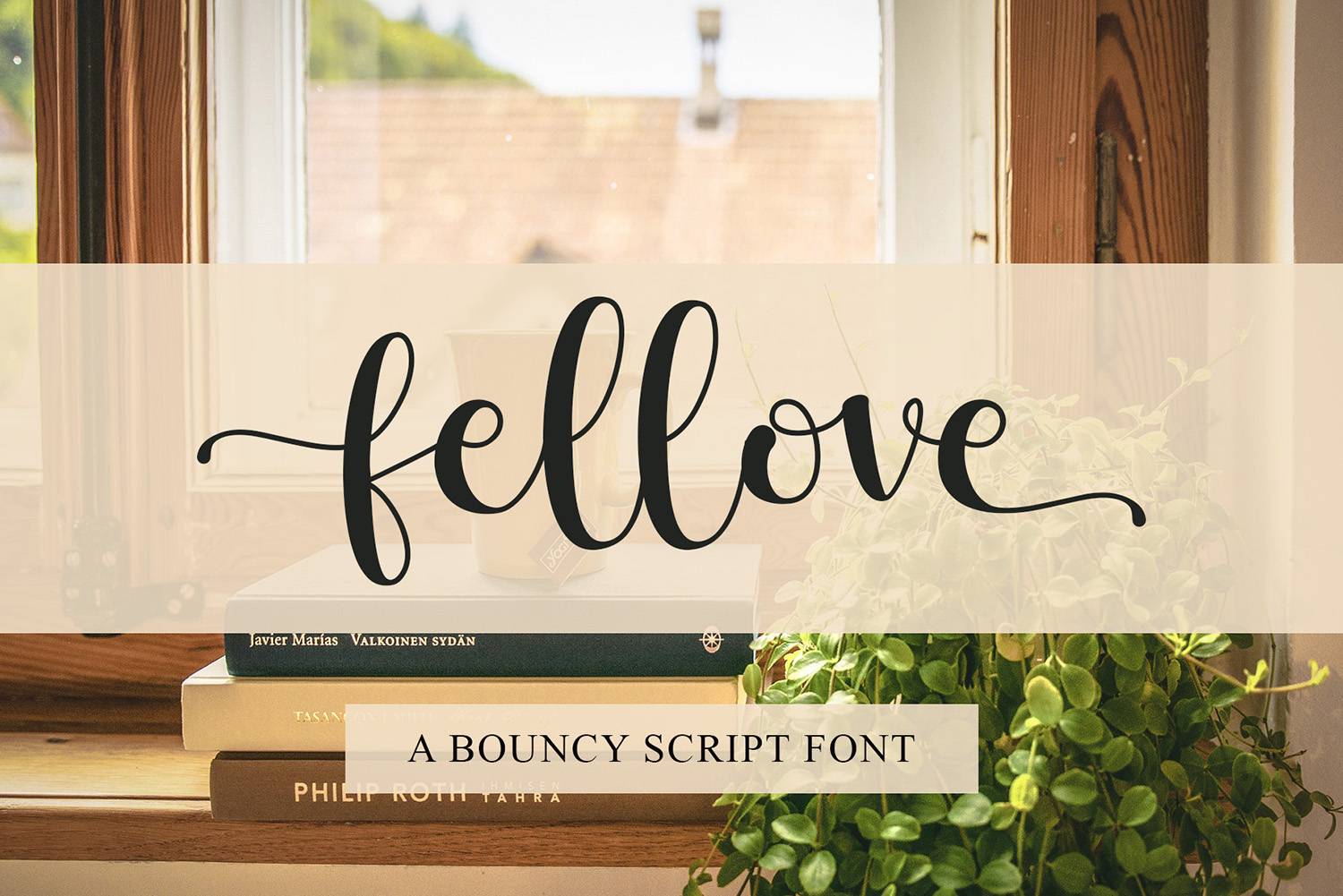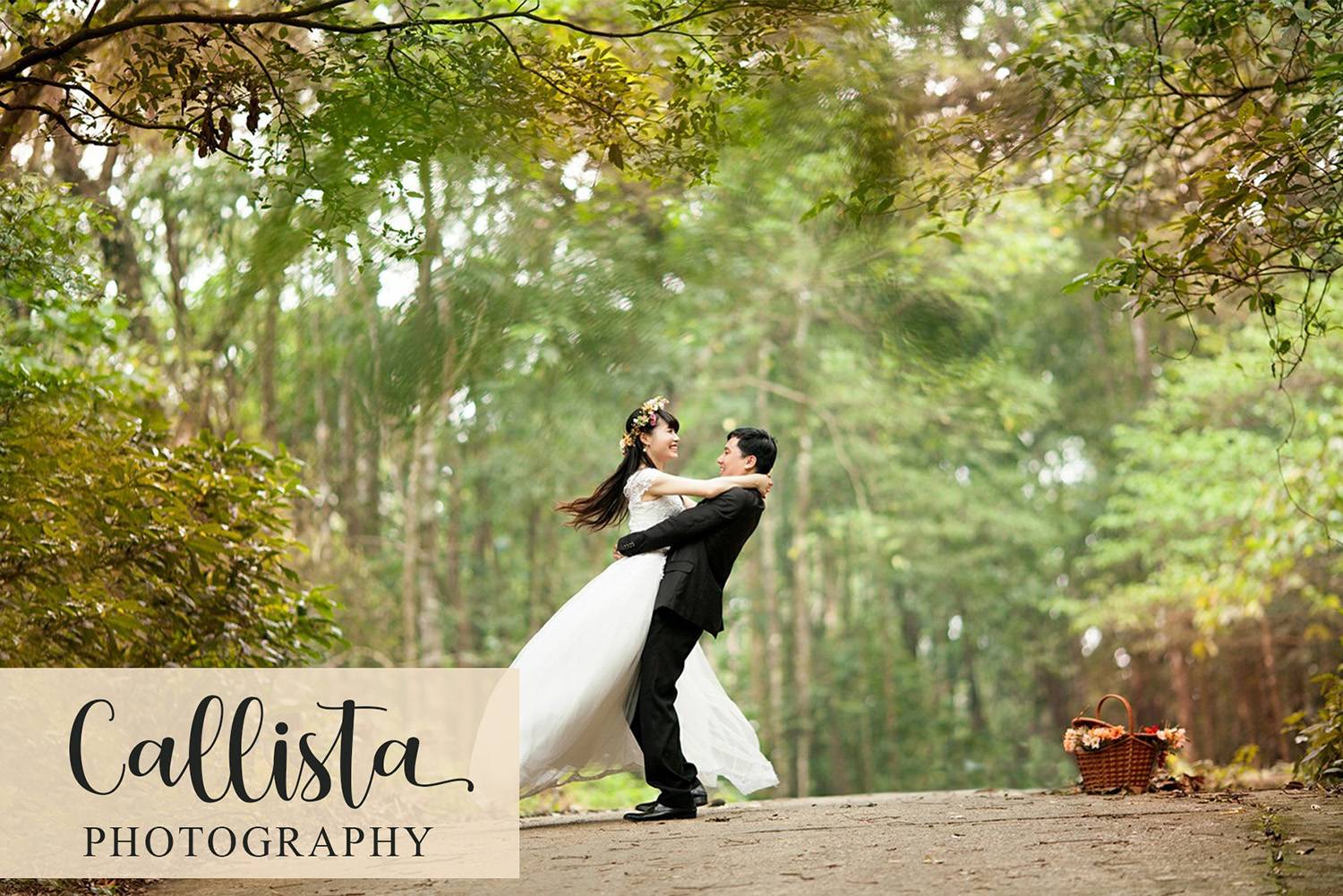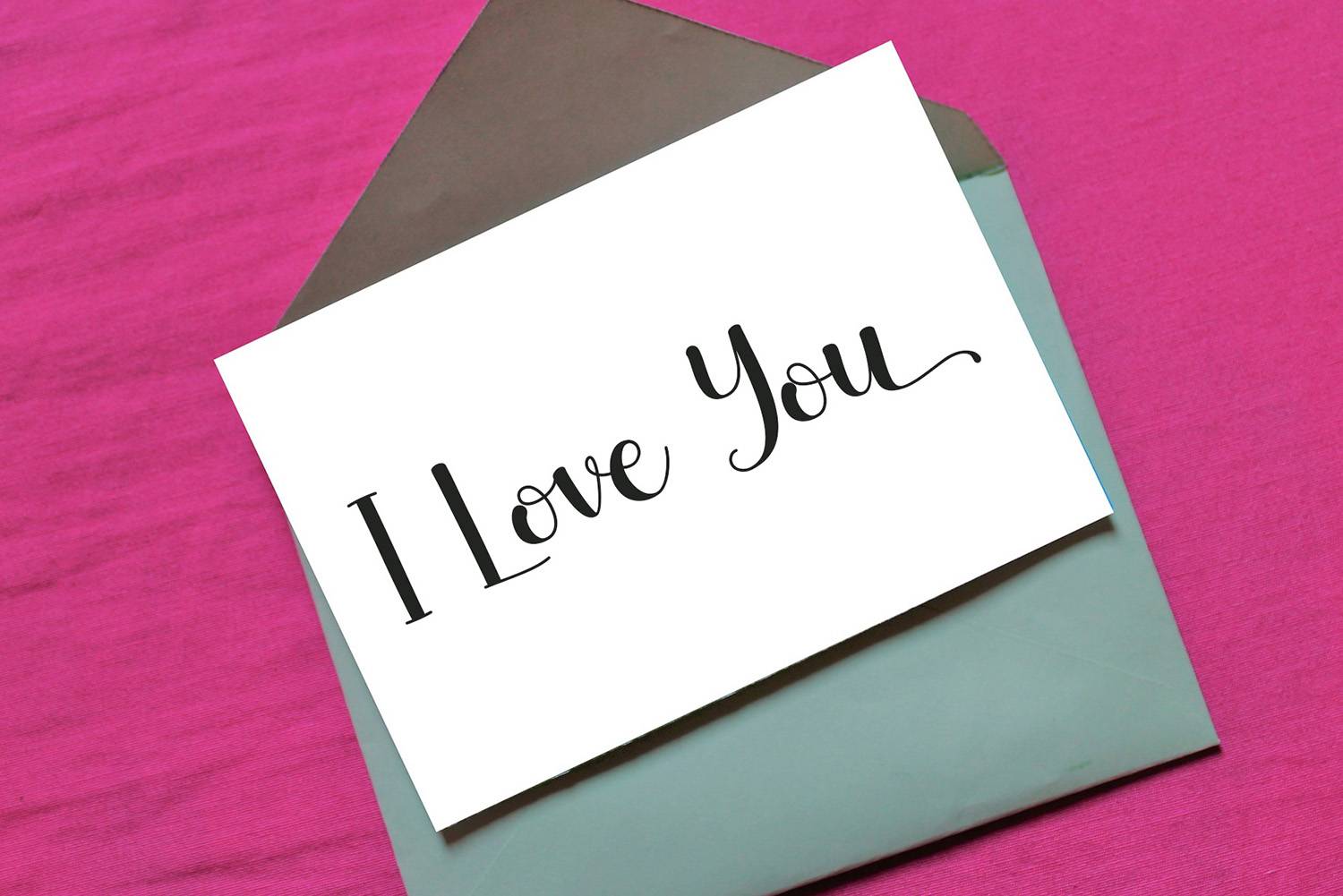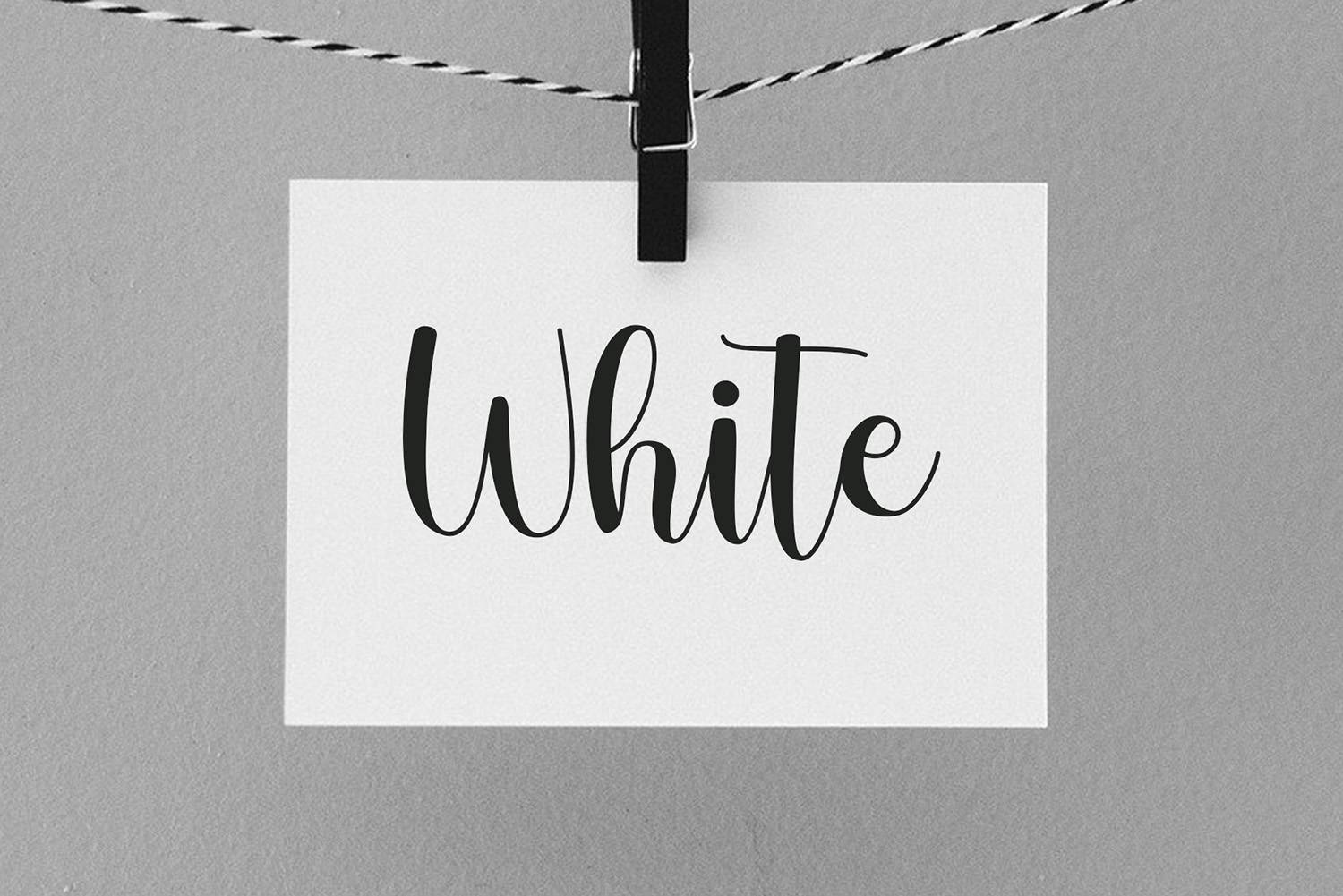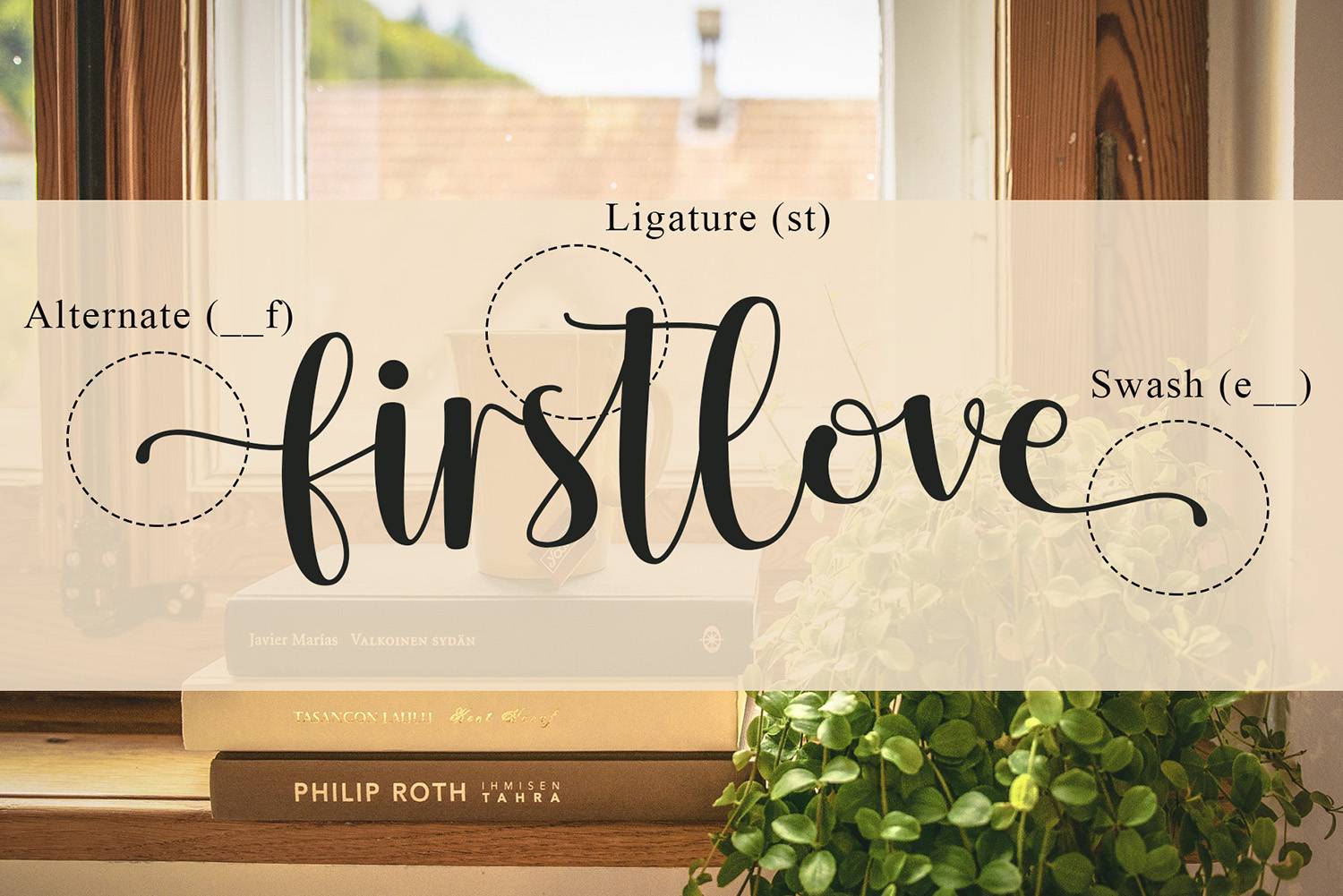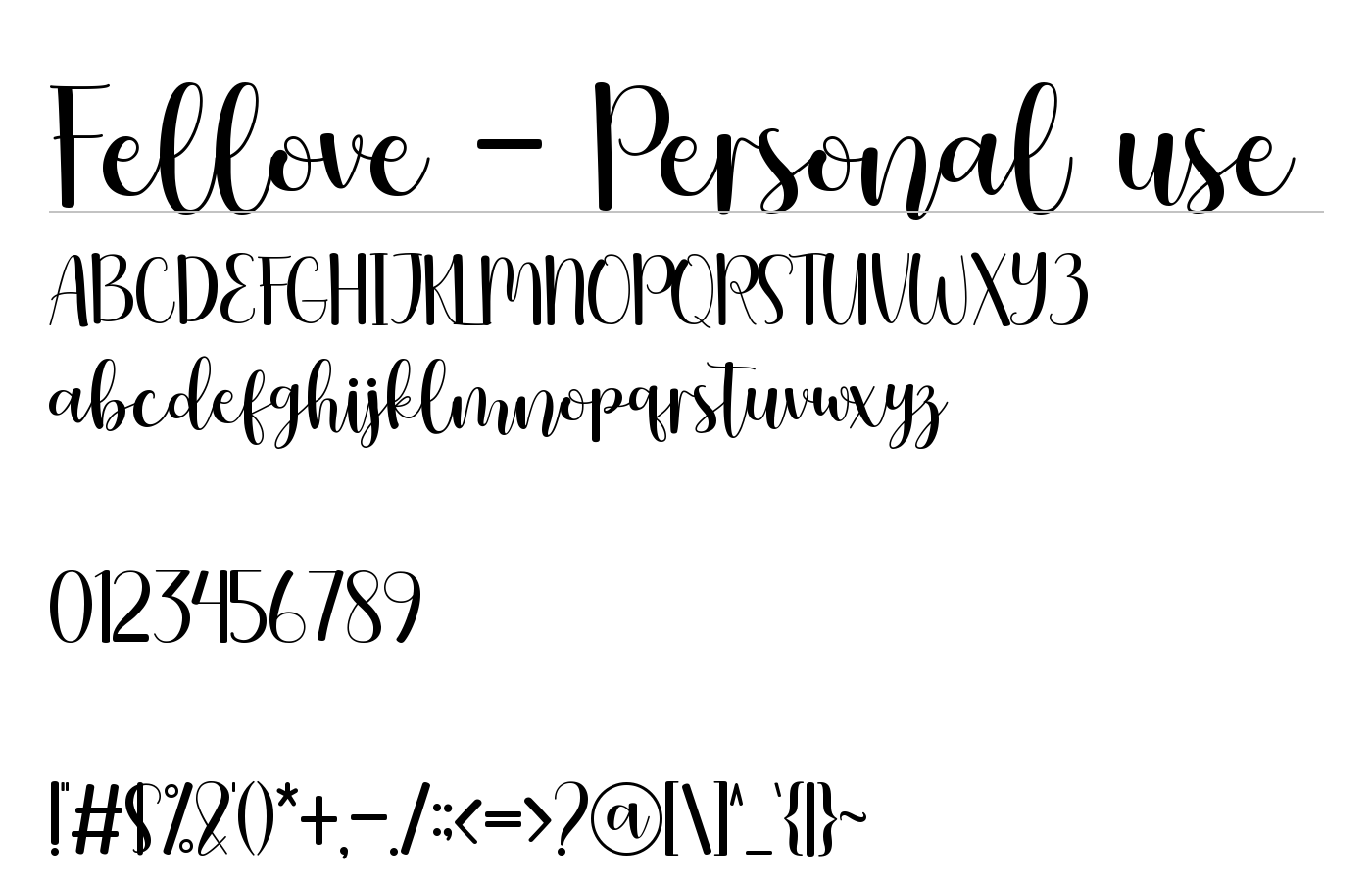
Fellove is a playful and elegant script font featuring tall, slender letterforms with a mix of smooth, flowing strokes and subtle, whimsical details. It combines a hand-lettered feel with refined curves, making it perfect for creative projects like invitations, branding, and social media where a personal and stylish touch is desired. Its readable yet decorative style works well for headlines and short texts, adding charm and sophistication without sacrificing clarity.
Fellove Font
About Fellove Font
| Font family | Fellove Font |
| Designer | Endri Sulistyawan |
| Trademark | Rashatype |